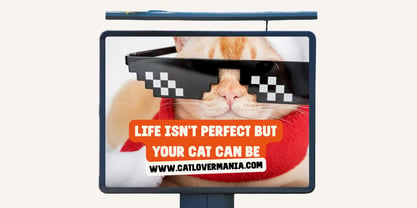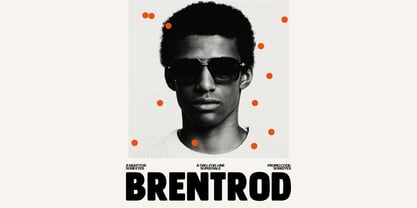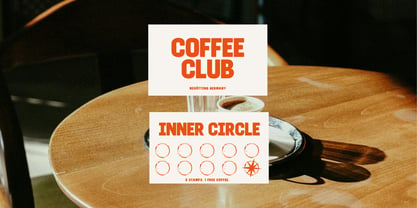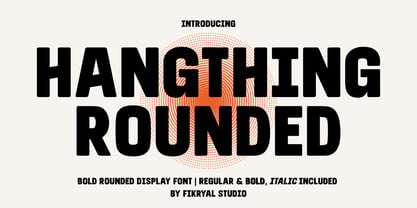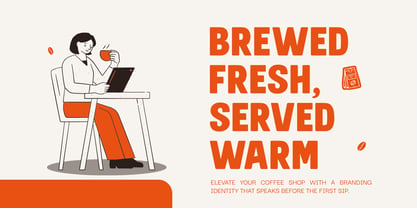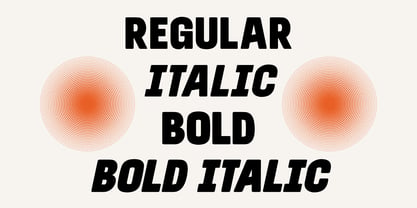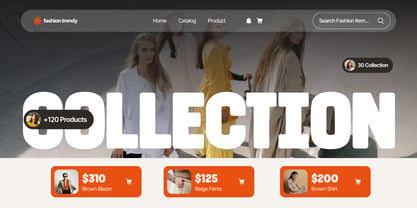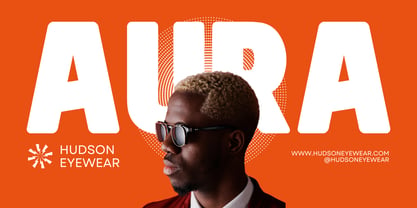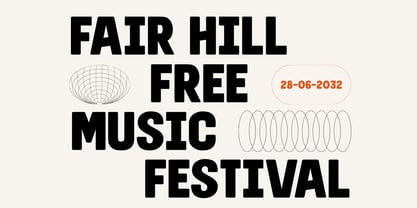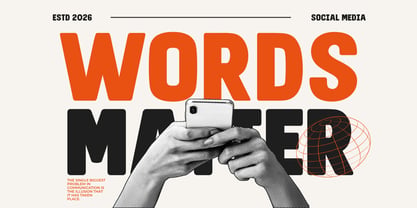
Hangthing Rounded
by Fikryal
The Hangthing Rounded Font Family was designed by Muhammad Fikry and published by Fikryal. Hangthing Rounded contains 4 styles and family package options. More about this family
Hangthing Rounded is a bold rounded display font family featuring Regular, Italic, Bold, and Bold Italic styles. Its smooth curves, thick strokes, and modern geometric design make it perfect for logos, branding, packaging, posters, headlines, children's products, social media graphics, merchandise, and editorial design. Friendly yet powerful, Hangthing is crafted to make every title stand out with confidence and personality.